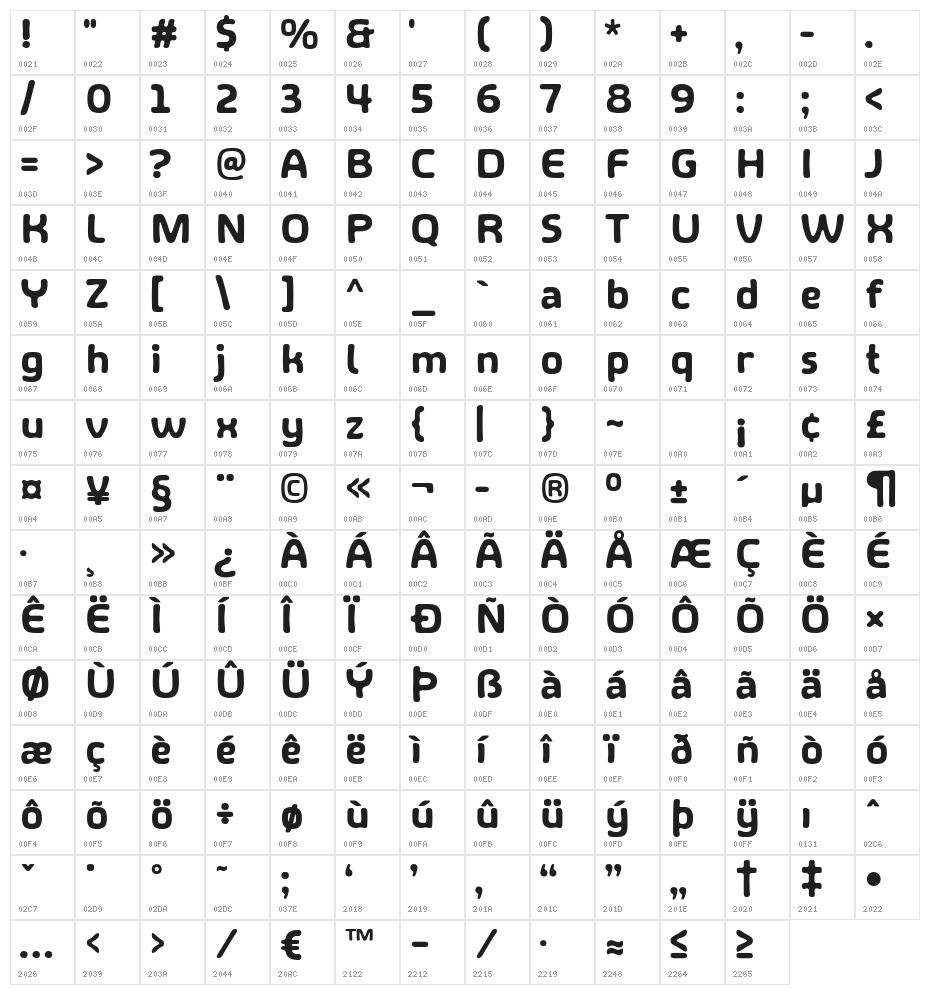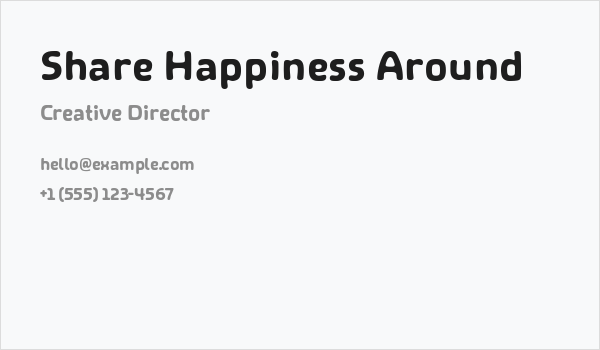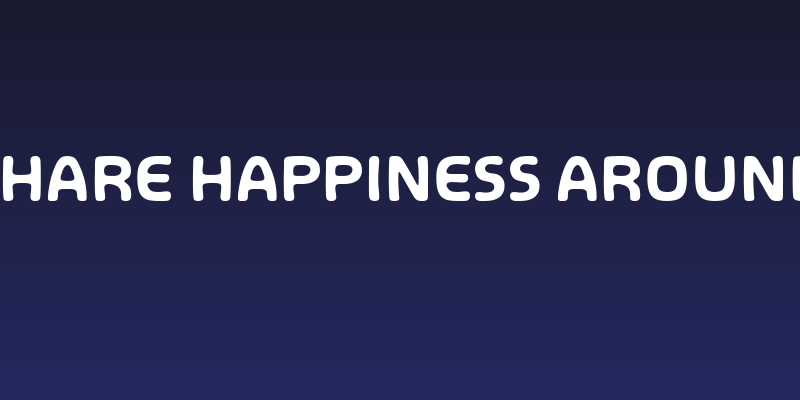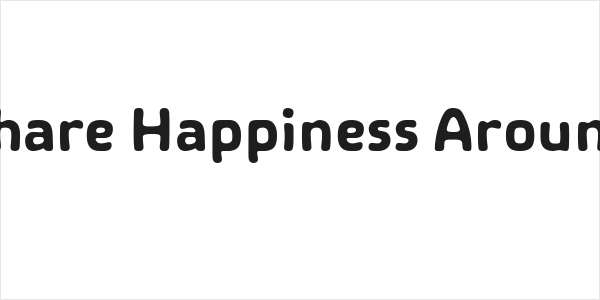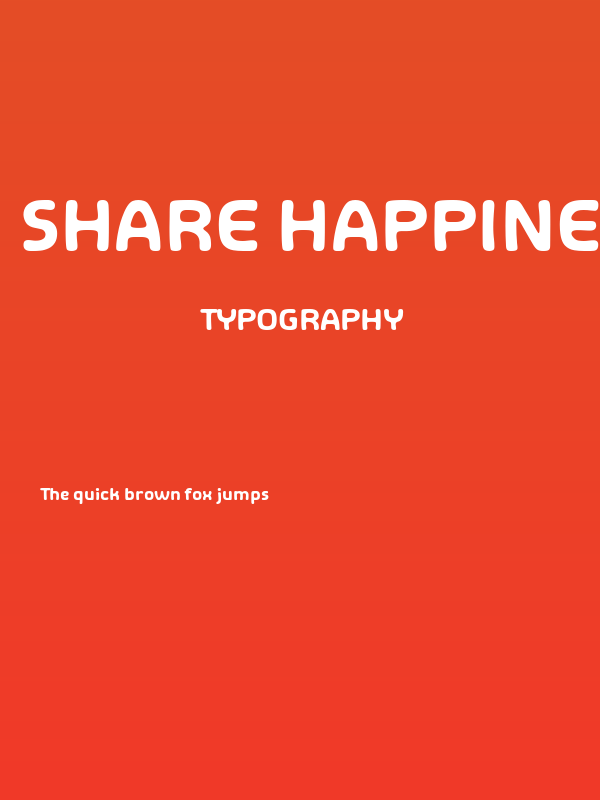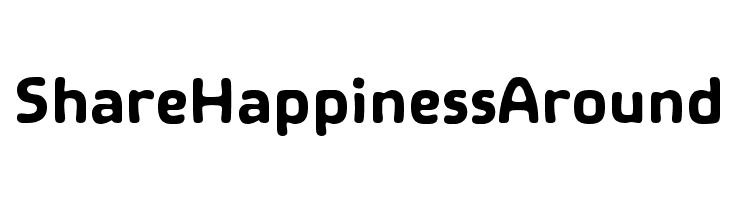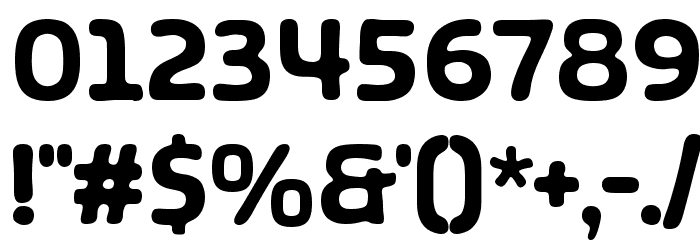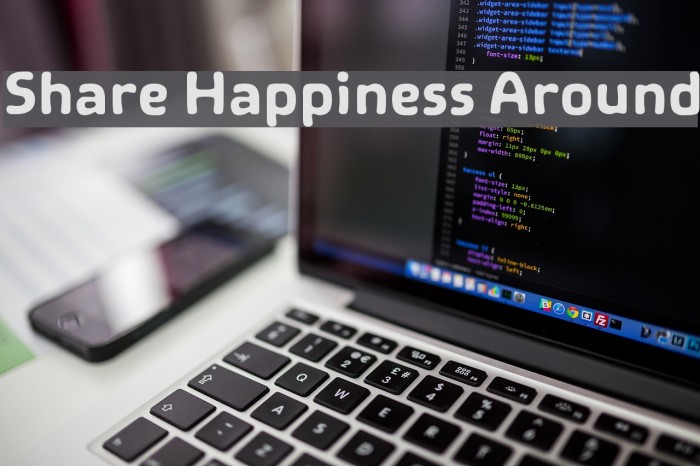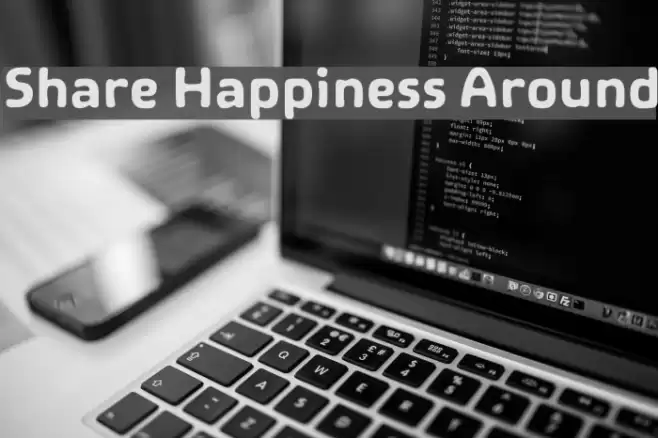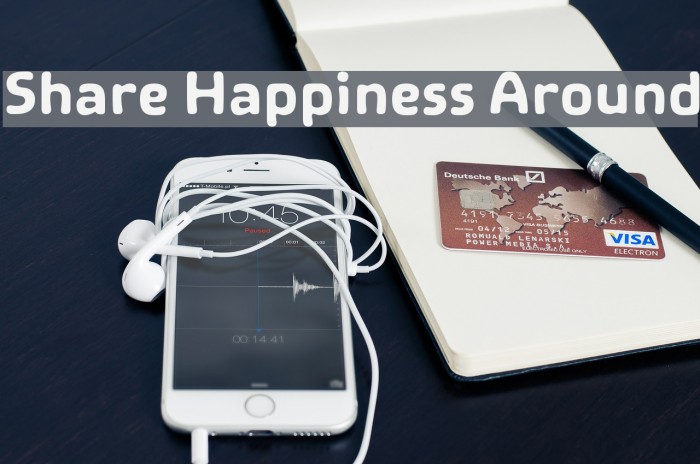
Share Happiness Around Font
Share Happiness Around Description
This font features a playful and rounded design, characterized by its smooth curves and friendly appearance. The letters are bold and have a consistent stroke width, giving it a uniform and cohesive look. The rounded edges and lack of sharp angles contribute to its approachable and informal style. It maintains a balanced proportion between height and width, ensuring readability while retaining its unique character. The font includes a full set of uppercase and lowercase letters, numerals, and a variety of special characters, making it versatile for different uses.
| Overall Style | Playful |
| Use Case | Headlines, Logos, Casual Text |
| Proposed Projects | Ideal for children's books, playful branding, greeting cards, and casual digital content. |